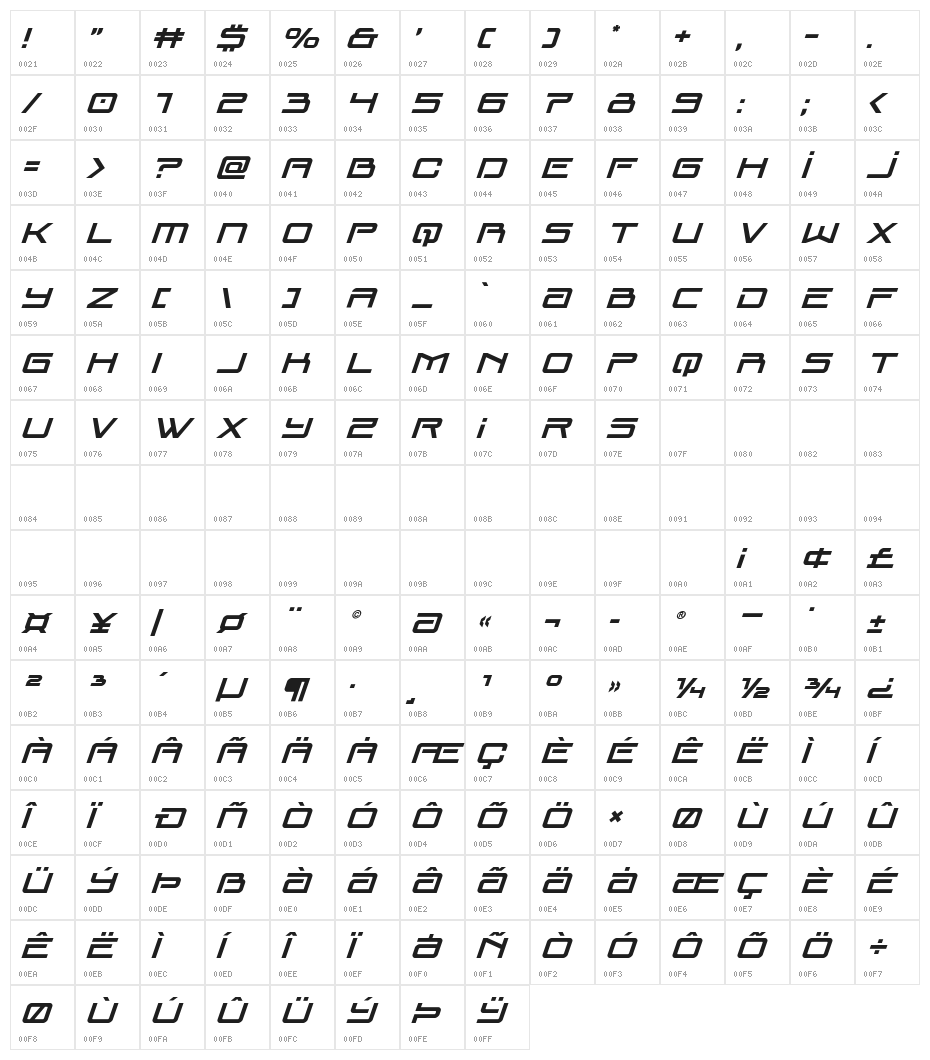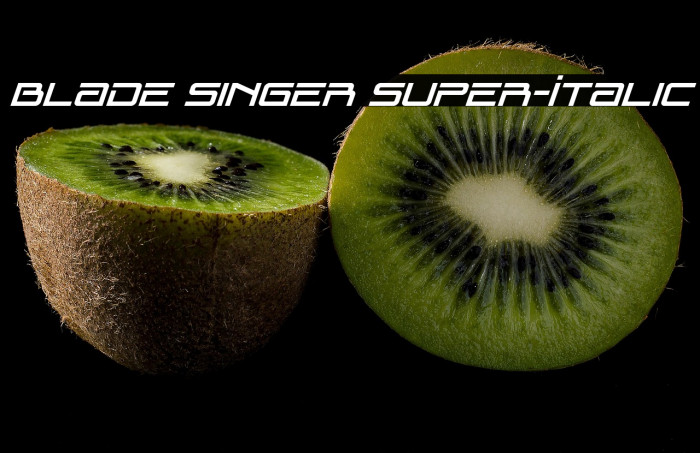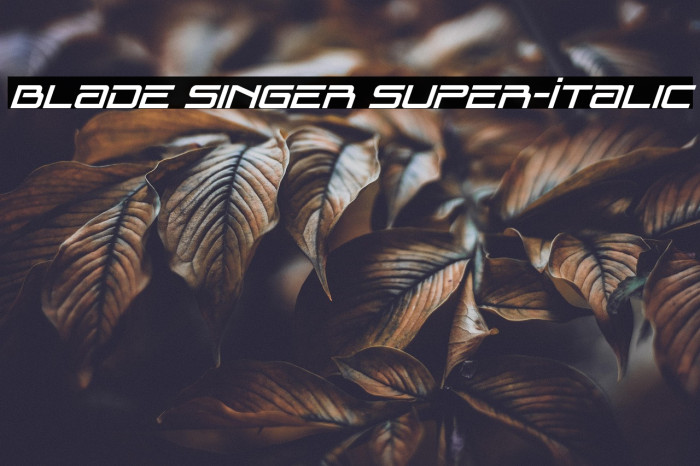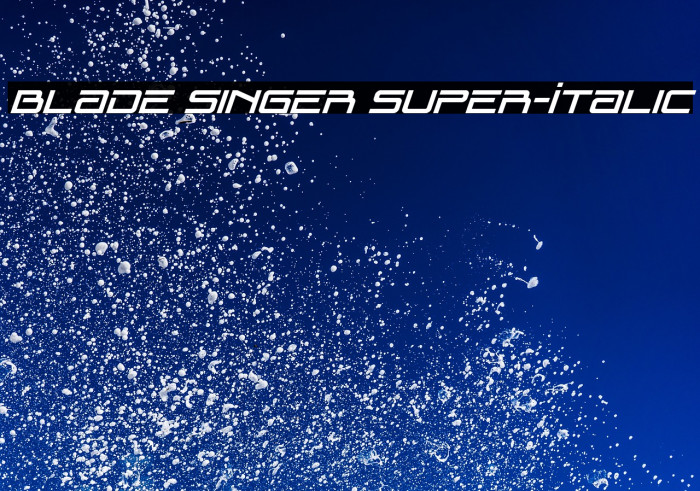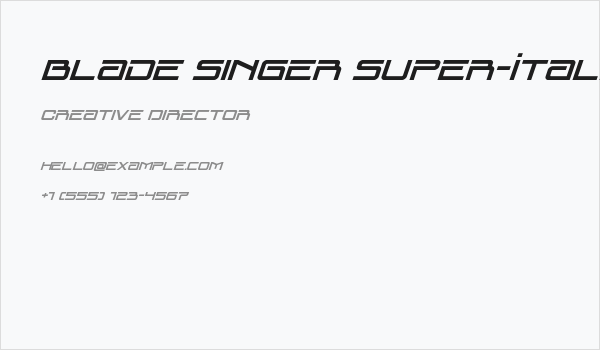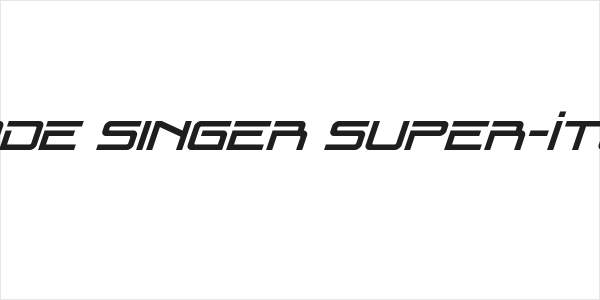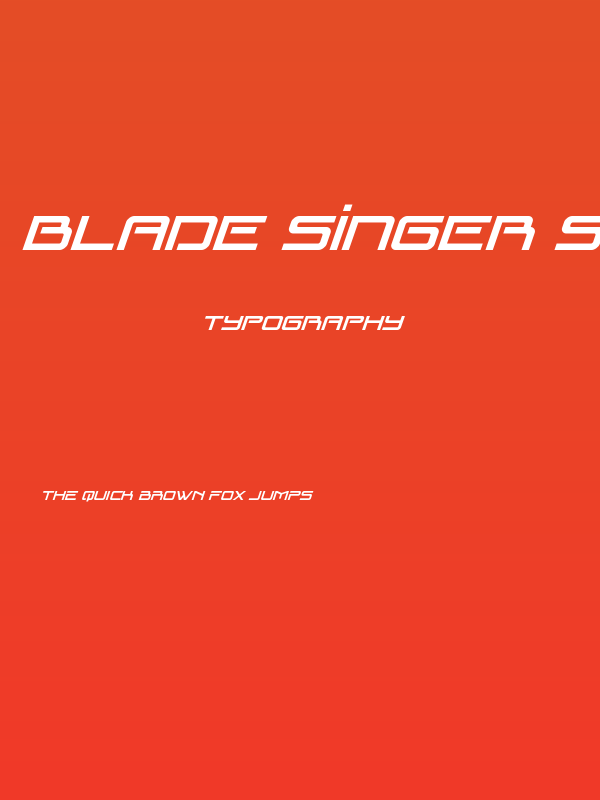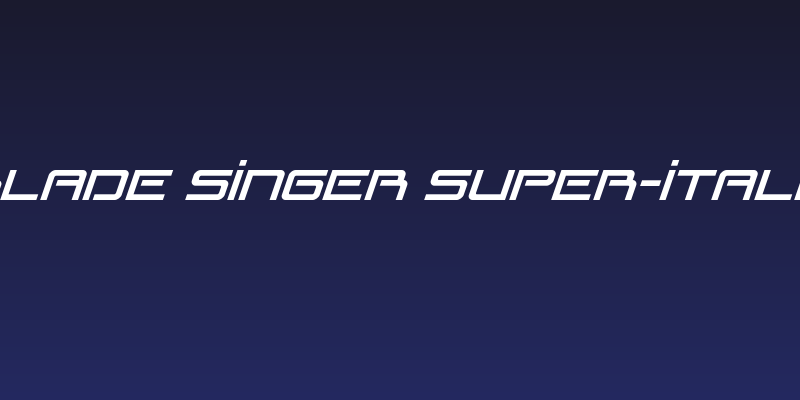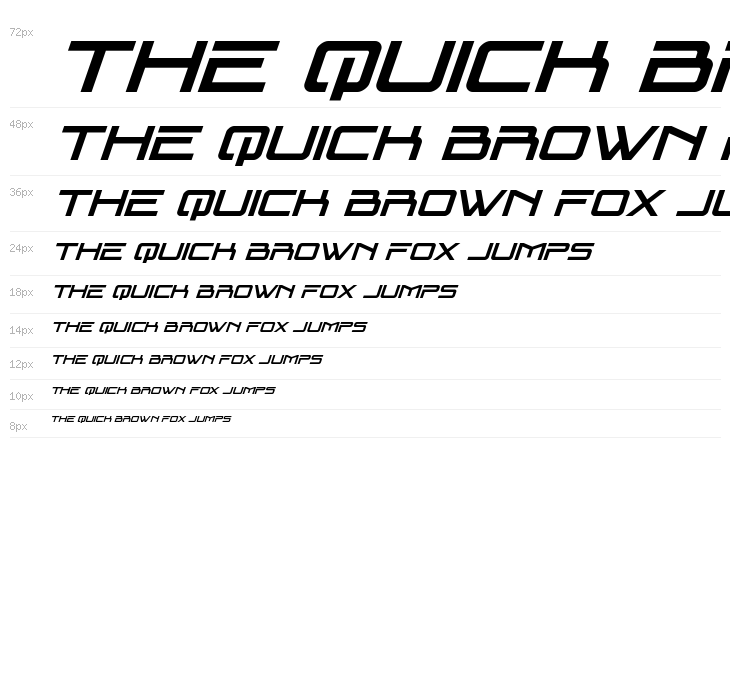
Blade Singer Super-Italic Font
Blade Singer Super-Italic Description
This font exhibits a sleek, futuristic design with a strong emphasis on angular lines and sharp edges. The characters are italicized, giving a sense of motion and speed, which is further enhanced by the slanted orientation. The uppercase and lowercase letters maintain a consistent style, with a uniform stroke width that contributes to a clean and modern appearance. The numerals and special characters are designed to match the overall aesthetic, ensuring a cohesive look across all elements. The font's distinct style makes it suitable for projects that require a contemporary and dynamic feel.
| Proposed Projects | Ideal for technology branding, sci-fi themed designs, video game interfaces, and modern advertising. |